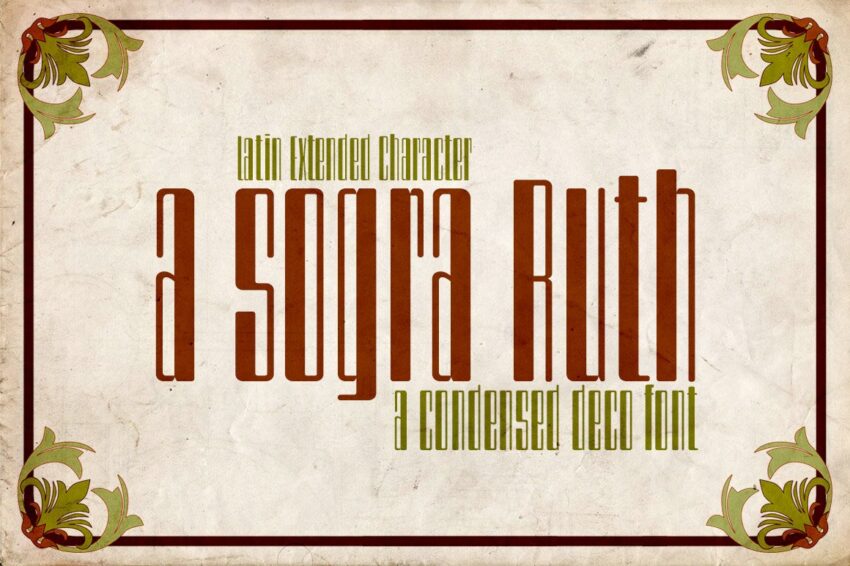
Introduction to A Sogra Ruth Font
This Sans-serif condensed deco font has a font display to save space on long and advertising designs.
A Sogra Ruth has an ultra-high contrast and is rounded at the corners The Commercial version includes: Latin-Extended & Greek alphabet.